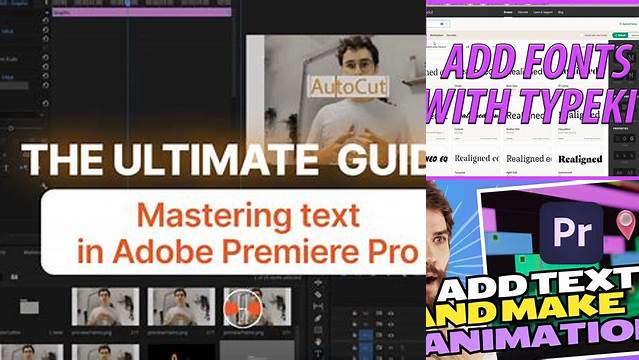
Custom Fonts In Premiere Pro: A Comprehensive Guide
Hey guys! Ever wondered how to supercharge your video projects with unique fonts? You're in luck! This guide will walk you through everything you need to know about using custom fonts in Adobe Premiere Pro. From understanding the basics to installing fonts and troubleshooting common issues, we've got you covered. Let's dive in and transform your videos with awesome typography!
Why Use Custom Fonts in Premiere Pro? Boosting Your Video's Visual Appeal
Alright, so why bother with custom fonts, right? Well, the answer is simple: impact. Custom fonts are like the secret sauce for your videos, helping them stand out from the crowd. Think about it – the default fonts in Premiere Pro are useful, but they're everywhere. Using custom fonts lets you create a unique brand identity and make your content visually more captivating. It's all about personality, and custom fonts bring that in spades. They help your video projects convey the right mood, tone, and message. Whether you're going for a sleek, modern look or a vintage, handcrafted vibe, the right font can make all the difference. Using custom fonts can significantly elevate the visual storytelling aspect of your videos. They give you the power to reinforce your message, create consistency across your branding, and grab your audience's attention. A well-chosen font can enhance the overall viewing experience, making your content more memorable and professional-looking. Plus, using custom fonts is a fantastic way to showcase your creativity and attention to detail. In the competitive world of video creation, every little advantage counts. Using custom fonts in your video projects helps to create a distinct visual identity. Imagine the possibilities: a bold, modern font for a tech tutorial, a playful, handwritten style for a kids' video, or an elegant serif font for a corporate presentation. With the wide variety of fonts available, you can really tailor your video's look and feel to match its content and target audience. Custom fonts contribute to a higher level of professionalism, signaling that you pay attention to the small details. It tells viewers that you invest time and effort into every aspect of your video creation process. This attention to detail builds trust and credibility, which is essential for building an audience and keeping them engaged. So, in essence, using custom fonts goes far beyond mere aesthetics. It's about crafting a unique and compelling visual narrative that resonates with your audience and makes your videos unforgettable. It helps you to inject personality into your videos and create a cohesive brand identity. Don't just settle for the standard; let's get creative!
Using Custom Fonts in Adobe Premiere Pro: Step-by-Step Guide
Alright, now let's get into the fun part – actually using those custom fonts in Premiere Pro! Here's a straightforward guide:
- Create a Text Layer: In your Premiere Pro timeline, select the text tool (it looks like a "T" in the toolbar) or go to "File > New > Legacy Title." Alternatively, you can use the Essential Graphics panel. Click on the program monitor where you want to add your text, and start typing.
- Access the Font Menu: With your text layer selected, go to the "Effect Controls" panel or the "Essential Graphics" panel. There, you'll find a section with font options. This is where you can change the font style, size, and other text properties.
- Select Your Custom Font: Click on the font dropdown menu. You should now see your newly installed custom fonts listed. Scroll through the list or type the name of your font in the search bar to find it quickly. Select the font you want to use.
- Customize Your Text: Now that you've selected your font, you can adjust the size, style (bold, italic, etc.), color, and alignment. Experiment with these settings to achieve the desired look for your text.
- Adjust Font Attributes: Premiere Pro provides a range of attributes to customize your fonts fully. Adjust the font size, leading, tracking, and kerning to refine the appearance of your text. Leading refers to the space between lines of text, while tracking controls the overall space between characters, and kerning adjusts the space between specific letter pairs. You can access these attributes in the "Effect Controls" or "Essential Graphics" panel.
Using custom fonts in Adobe Premiere Pro is a game-changer for any video creator. By following this guide, you're now equipped to install, use, and troubleshoot any font-related issues, and optimize your video projects to create videos that grab attention and leave a lasting impact. So, go forth, experiment, and create videos that stand out!